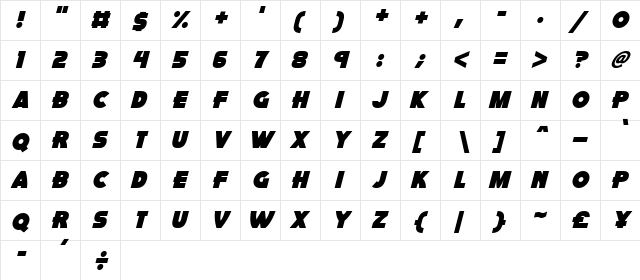
Pink Rocket Italic
Design Context for Pink Rocket Typeface
Pink Rocket offers clean, dependable letterforms without strong stylistic allegiance, making it a practical choice for designers who need flexibility. Its italic angle brings a sense of urgency and motion to the letterforms.
Pro Tip: Try Pink Rocket for annotation and caption copy alongside an upright companion — the contrast in angle creates a dynamic but ordered typographic system.